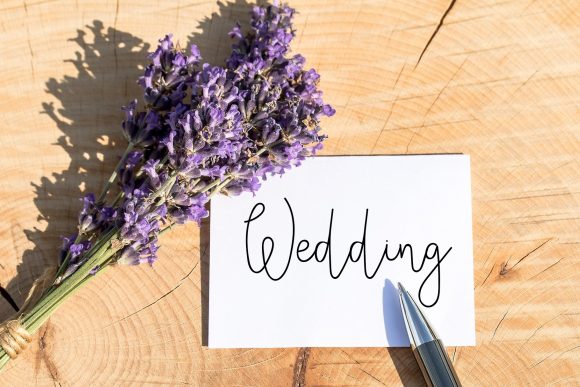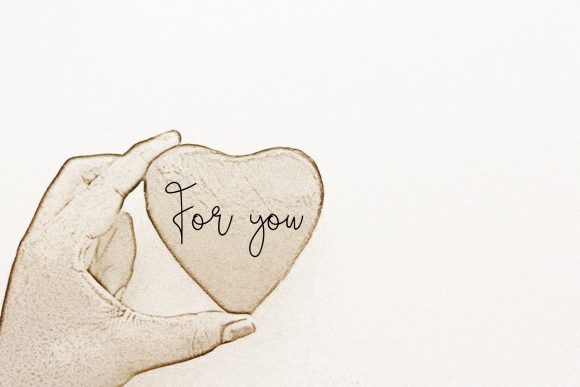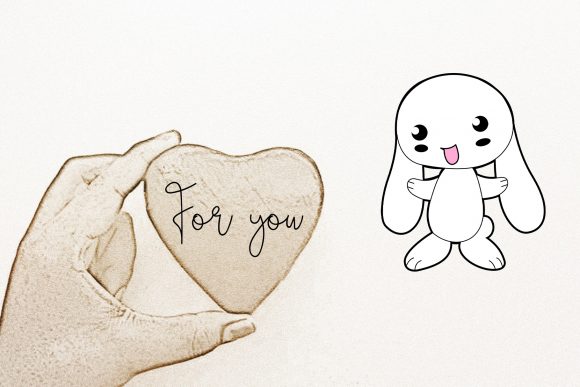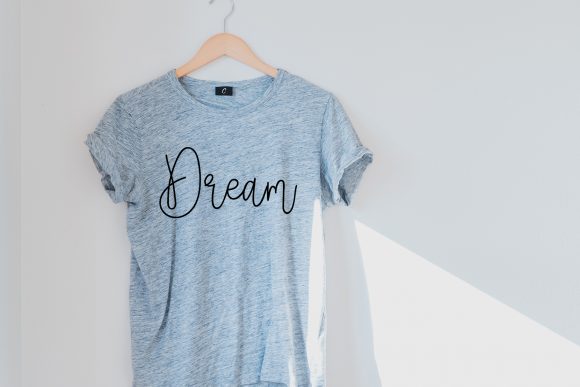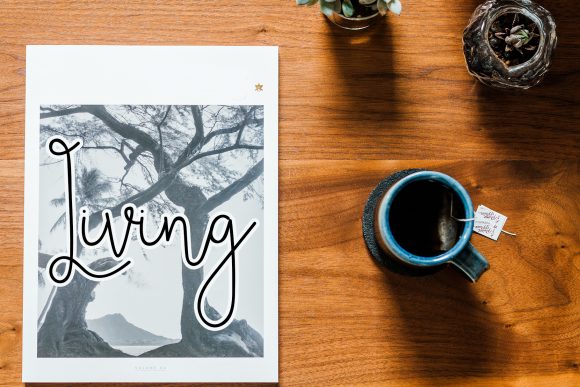
Homework Font
About Homework Font
Homework is a thin, round lettered handwritten font, featuring a lovely style. No matter the topic, this font will be an incredibly asset to your fonts’ library, as it has the potential to elevate any creation.